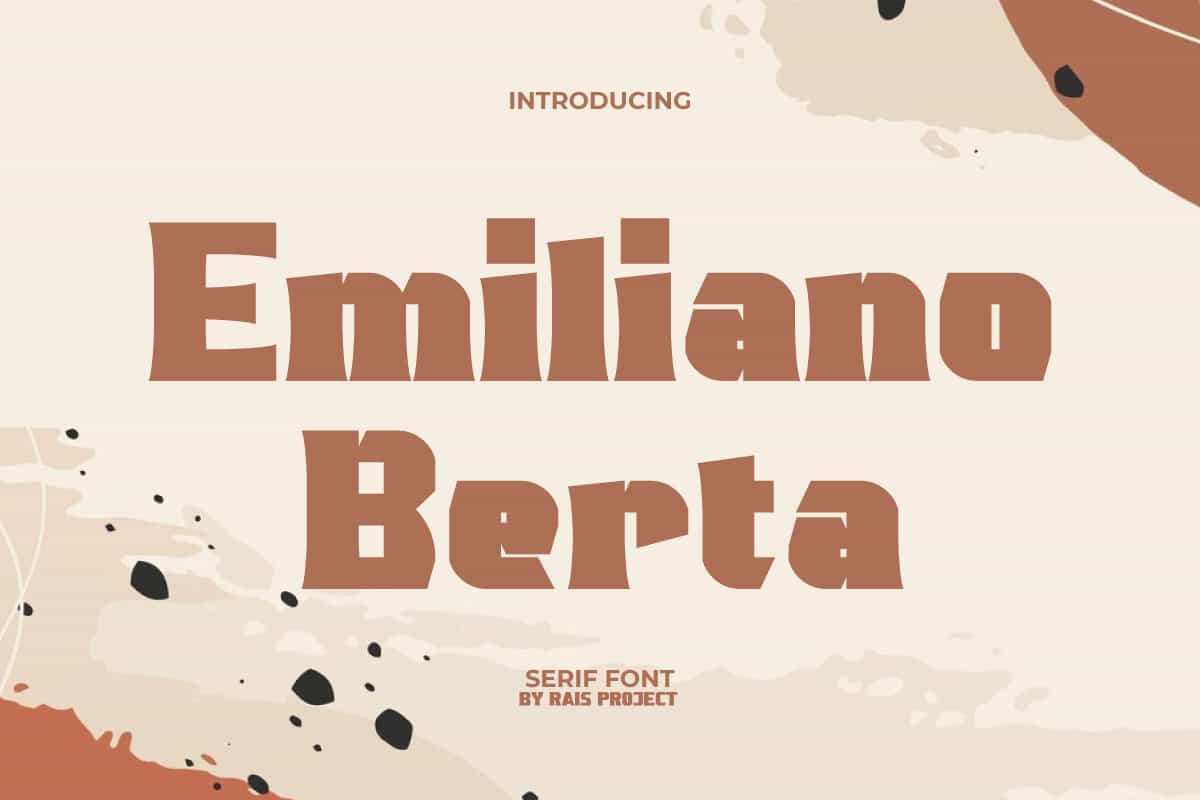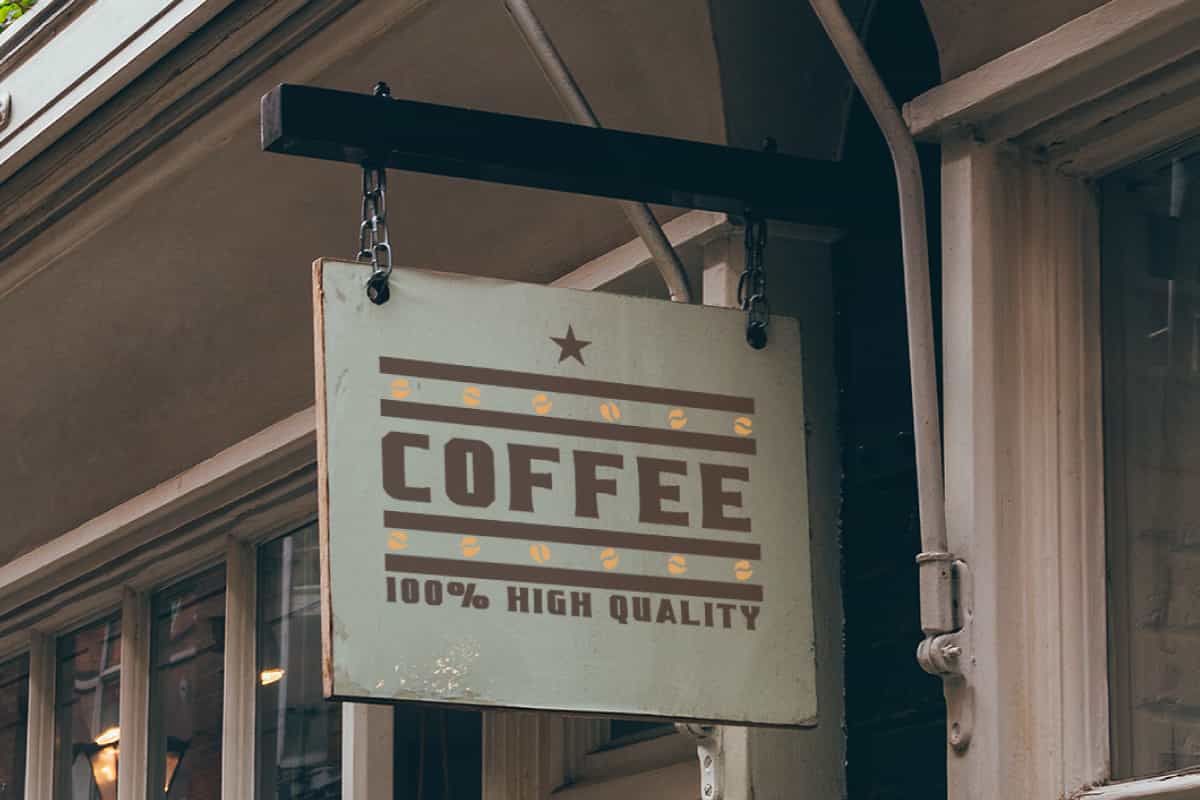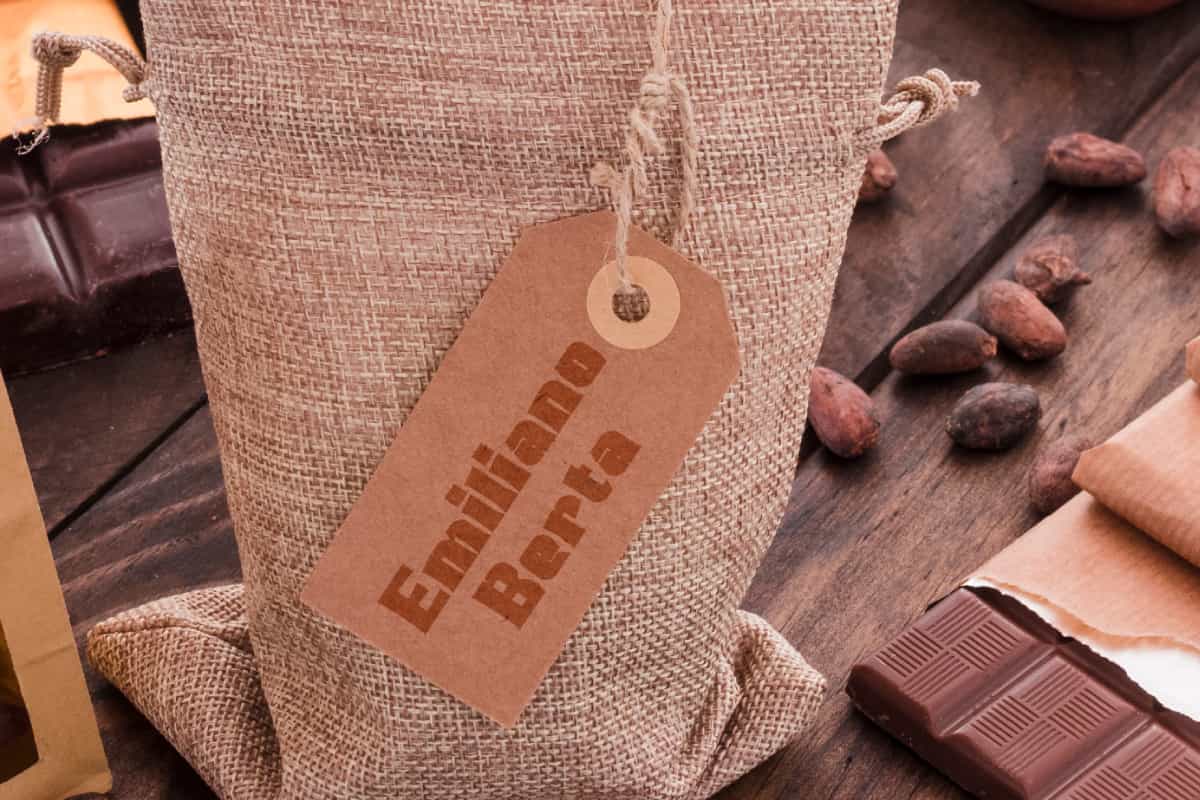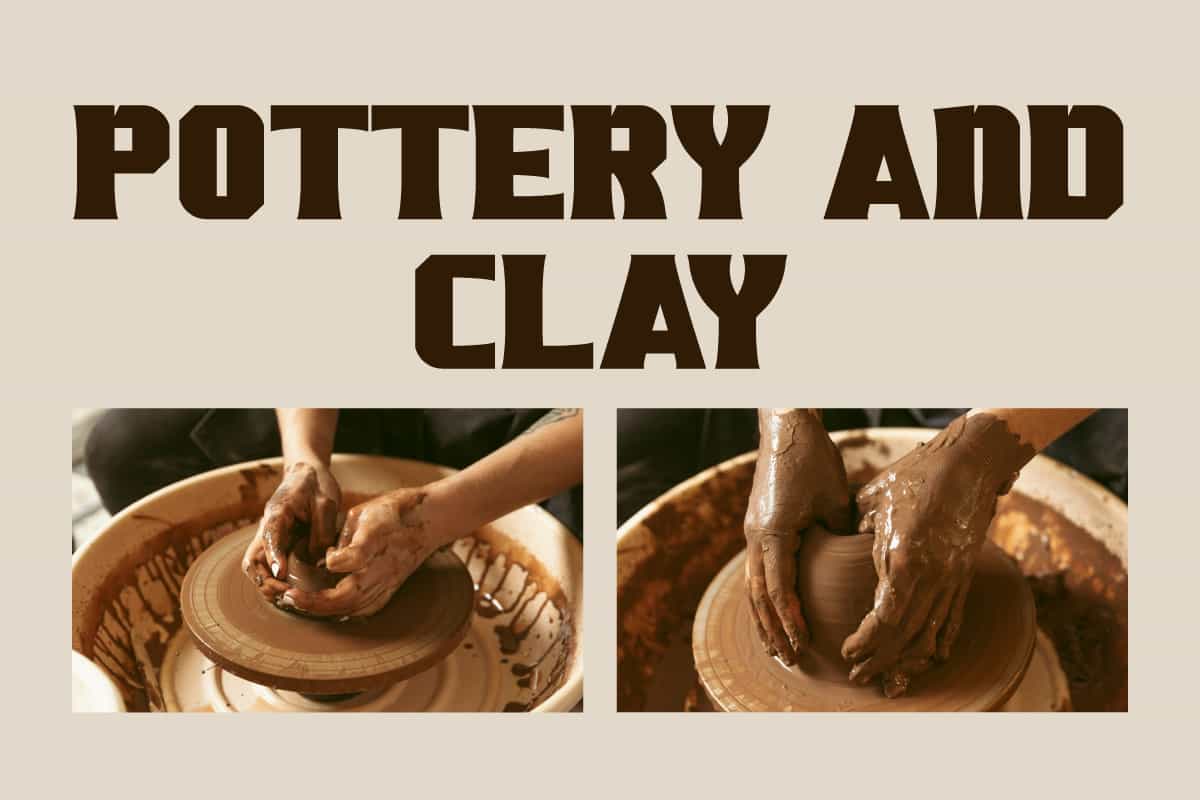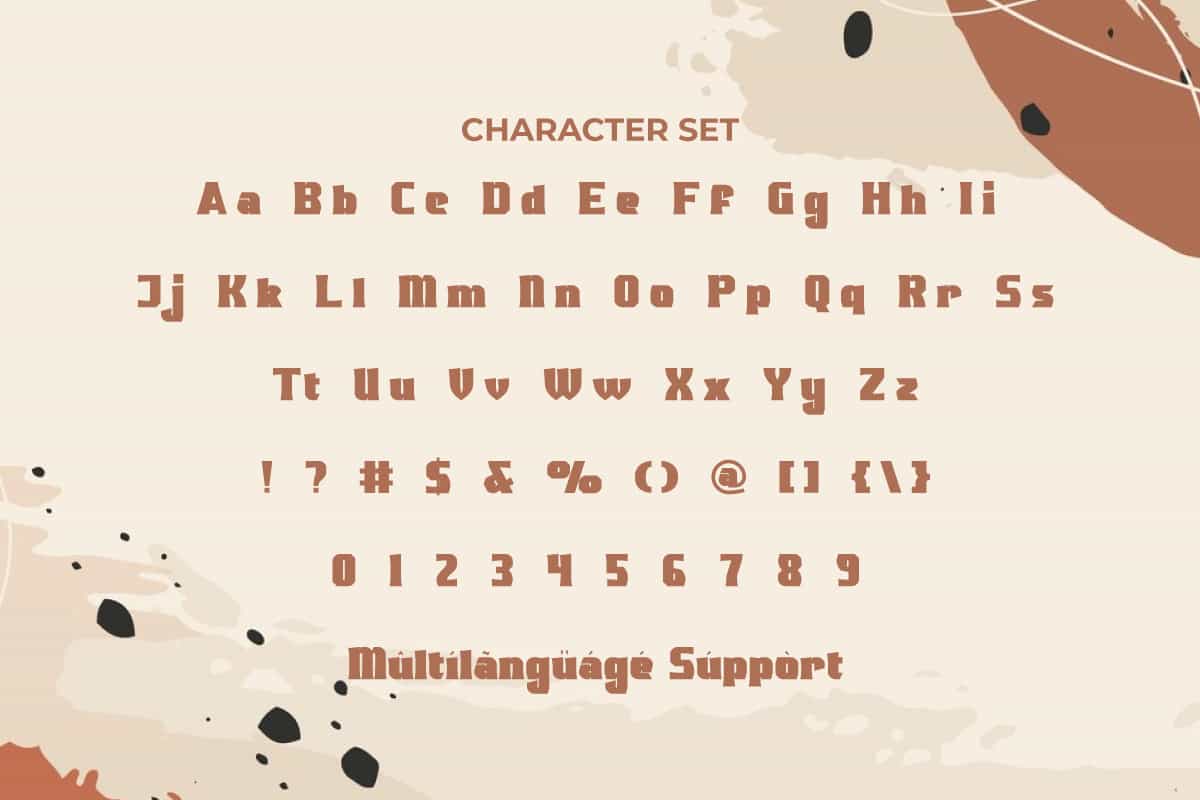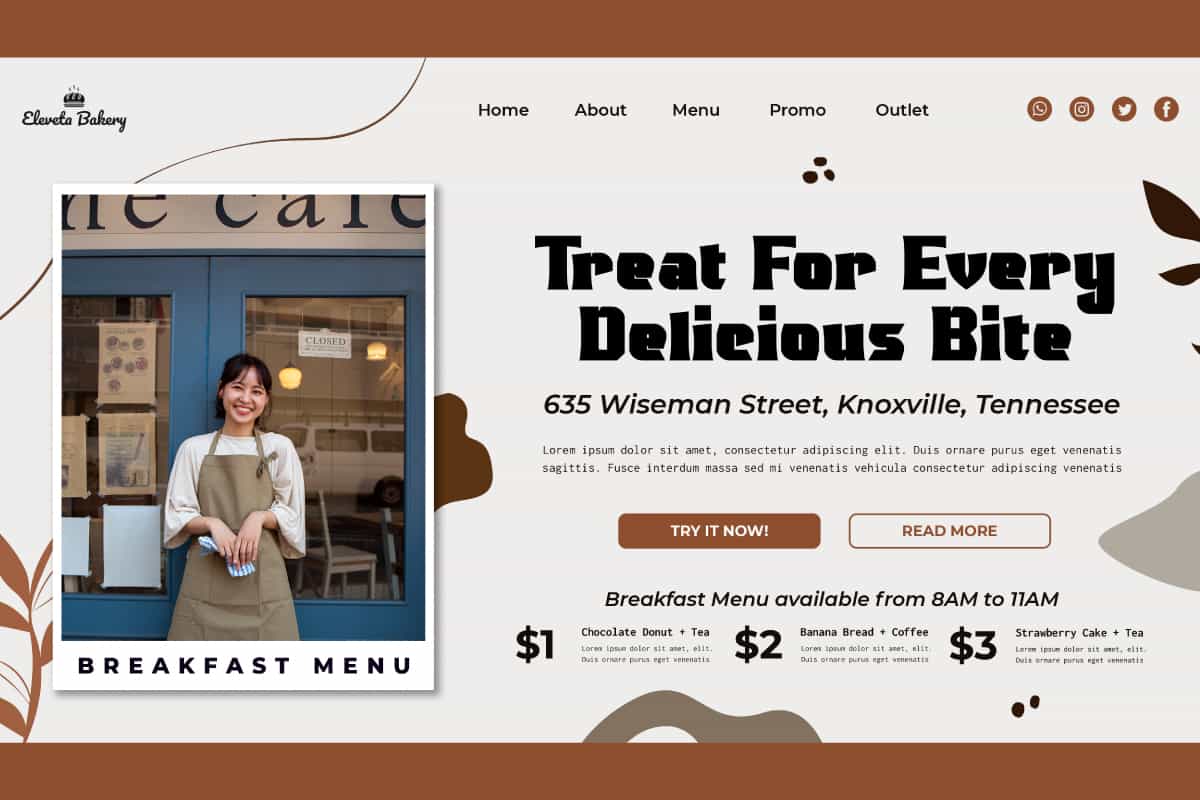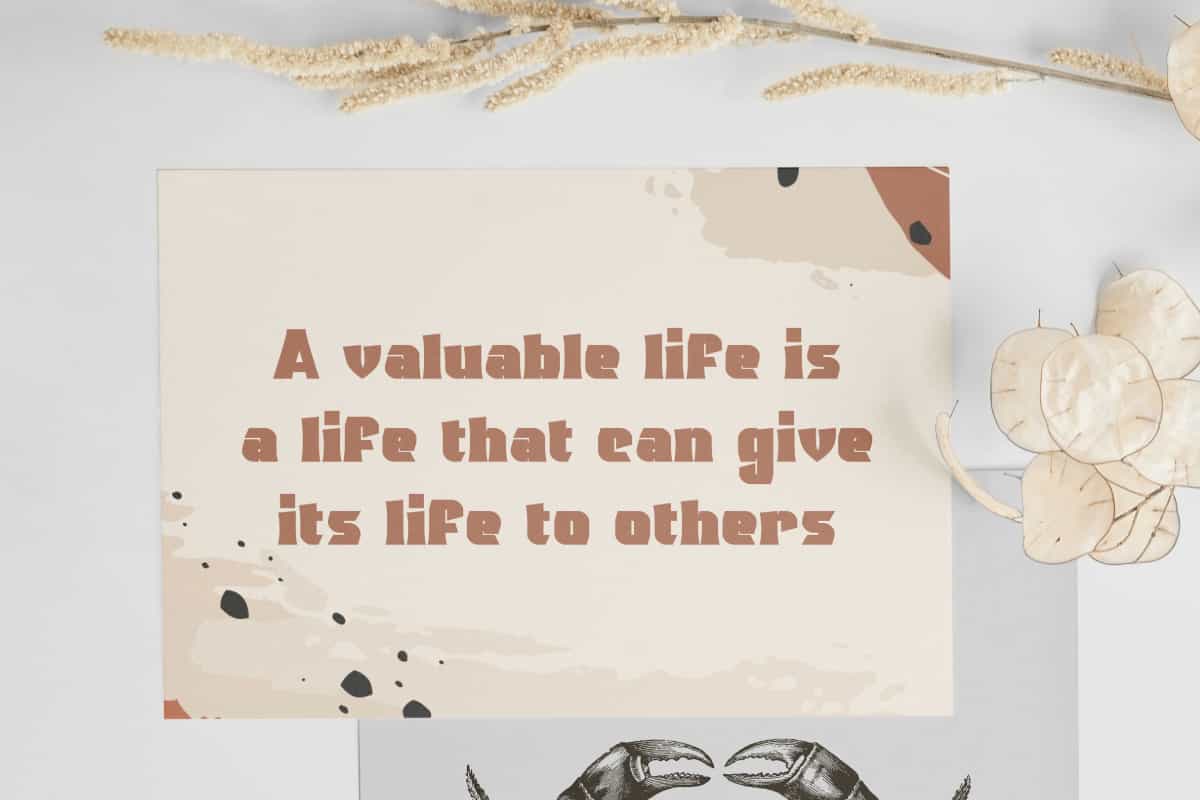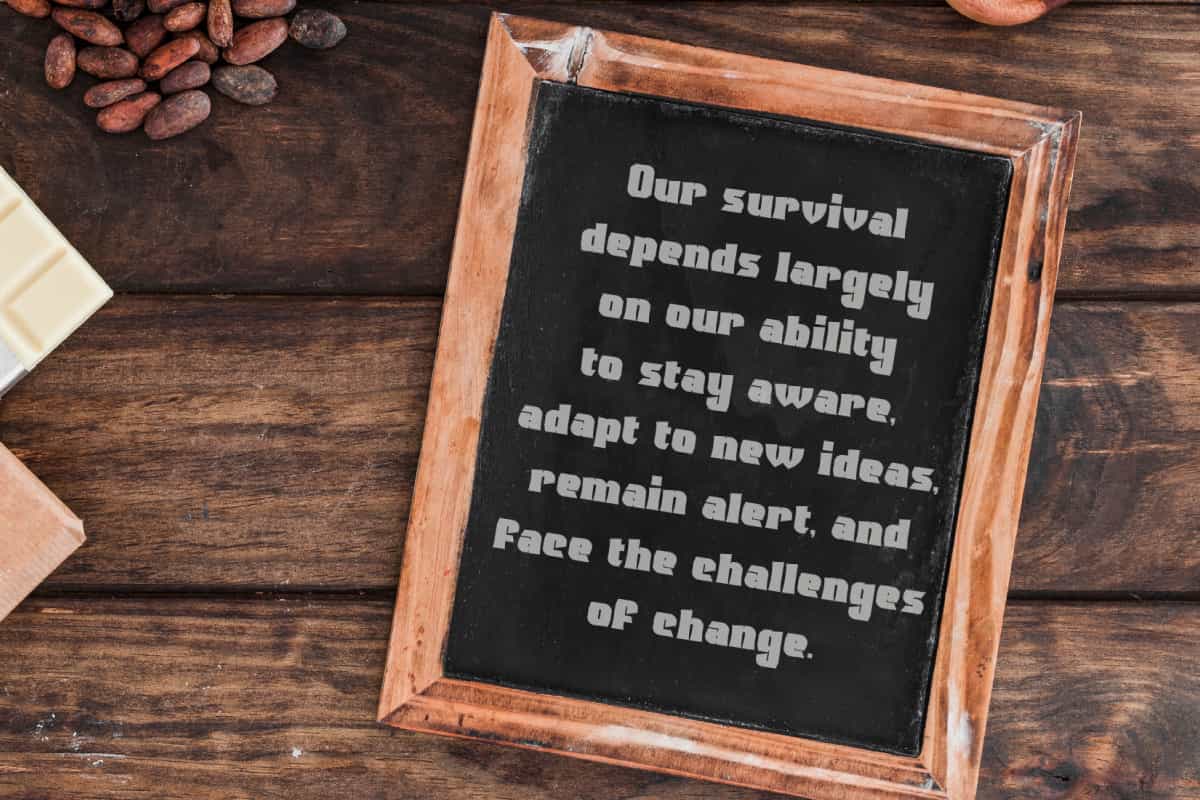
Emiliano Berta Font is a classic retro styled serif font with a unique boxy shape by RaisProject. This serif font has a catchy style and can paired with other font types. It will look good on invitation, stationery, poster, custom design, product packaging, quotes, signage, brand image, advertisement, label, marketing material, website page, and more! You can see the demo font below, input any word you want so you can see what it looks like: